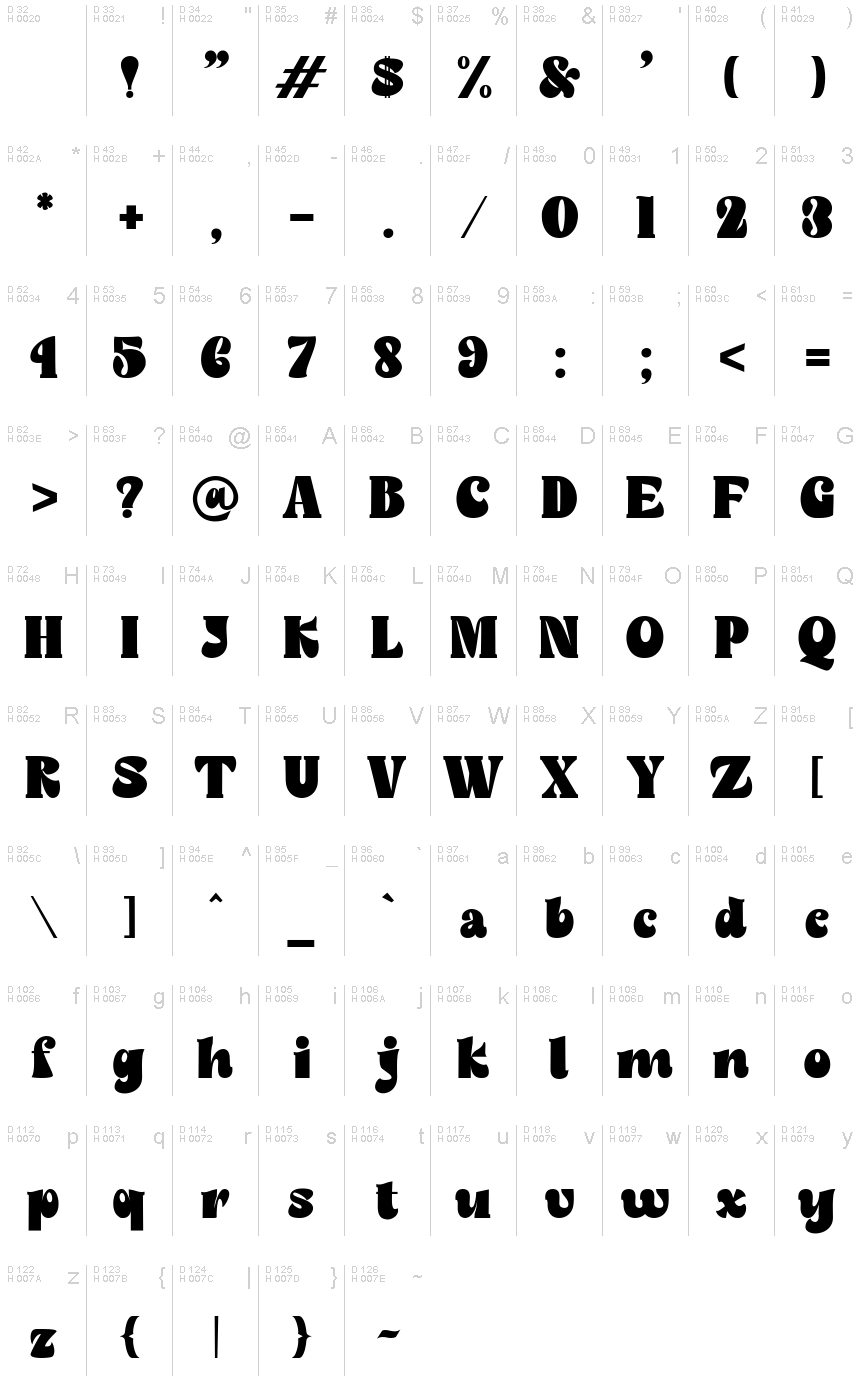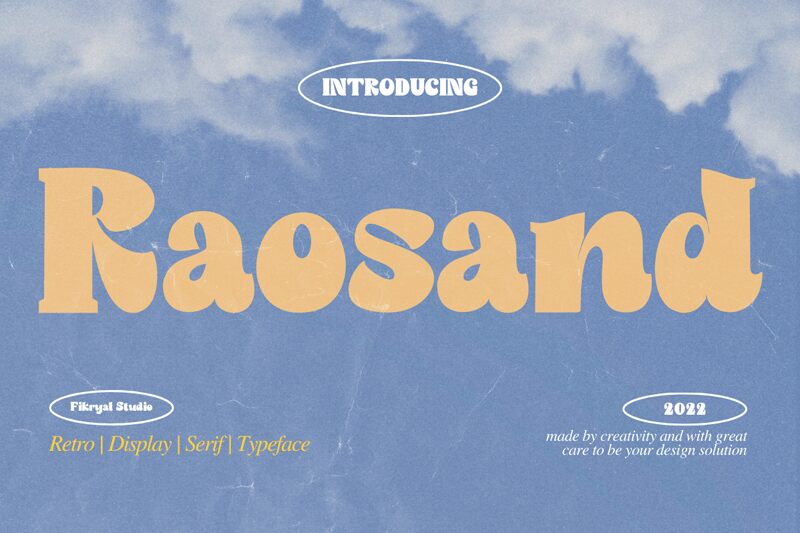
Raosand
Raosand, a creation by Fikryal Studio, stands out as an extra-bold display font with a distinct retro flair. Its robust character shapes exude confidence, making it an ideal choice for impactful headlines and branding that demands attention. The aesthetic appeal of Raosand lies in its ability to marry the charm of vintage design with modern-day boldness.
This font’s versatility shines in various creative projects, from poster designs to packaging, where its retro vibe can transport audiences to bygone eras while maintaining a contemporary edge. With Raosand, designers have the power to craft visually compelling narratives that resonate with their target audience through style and substance.